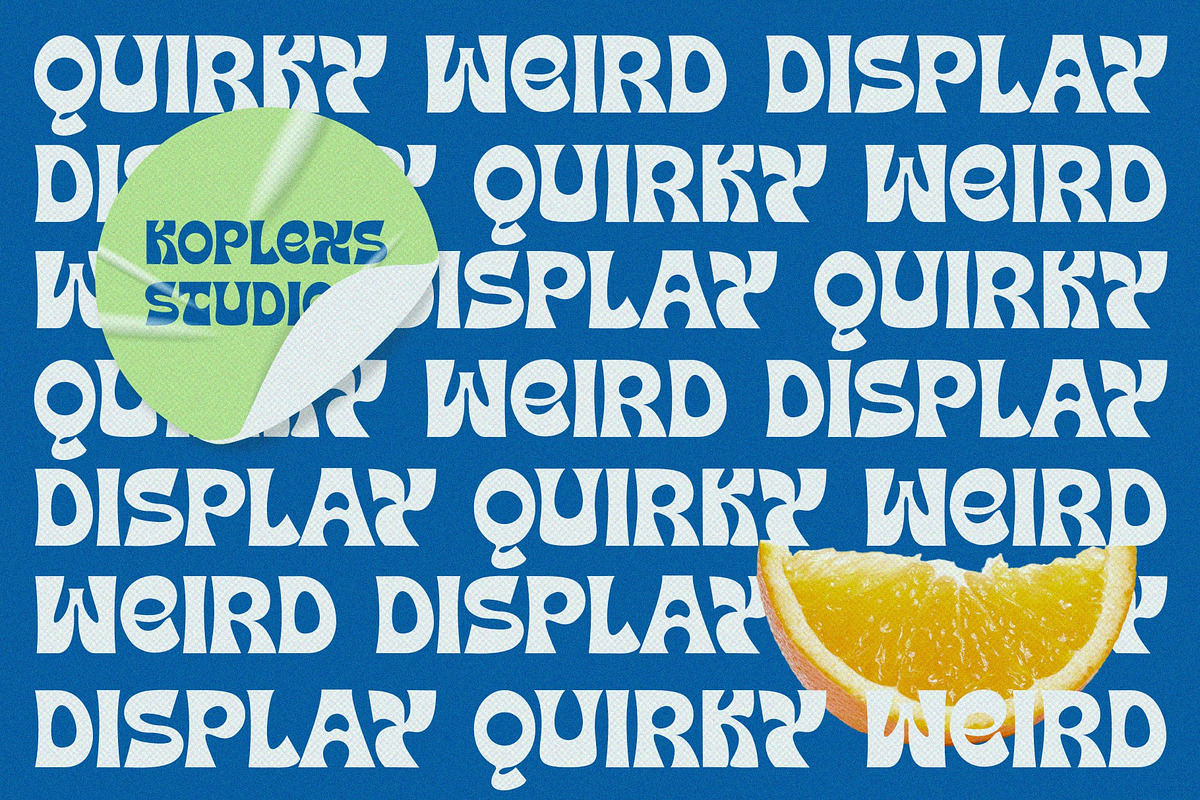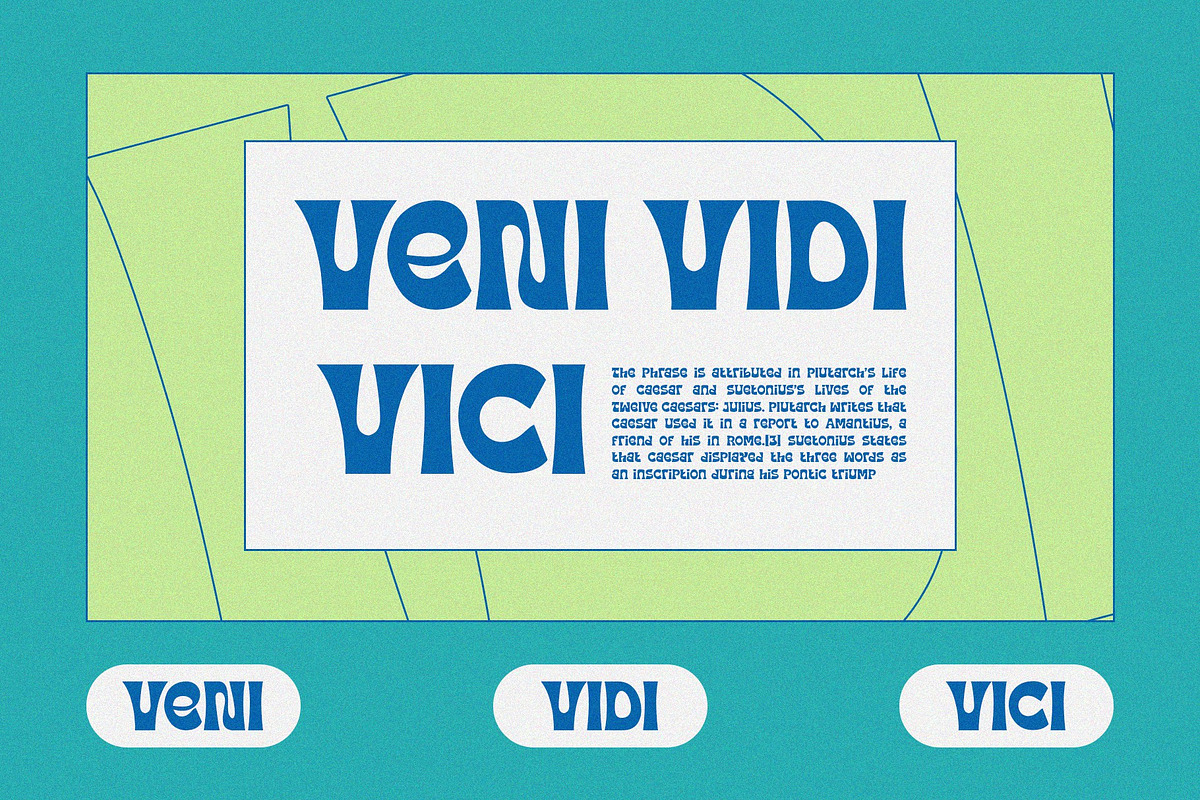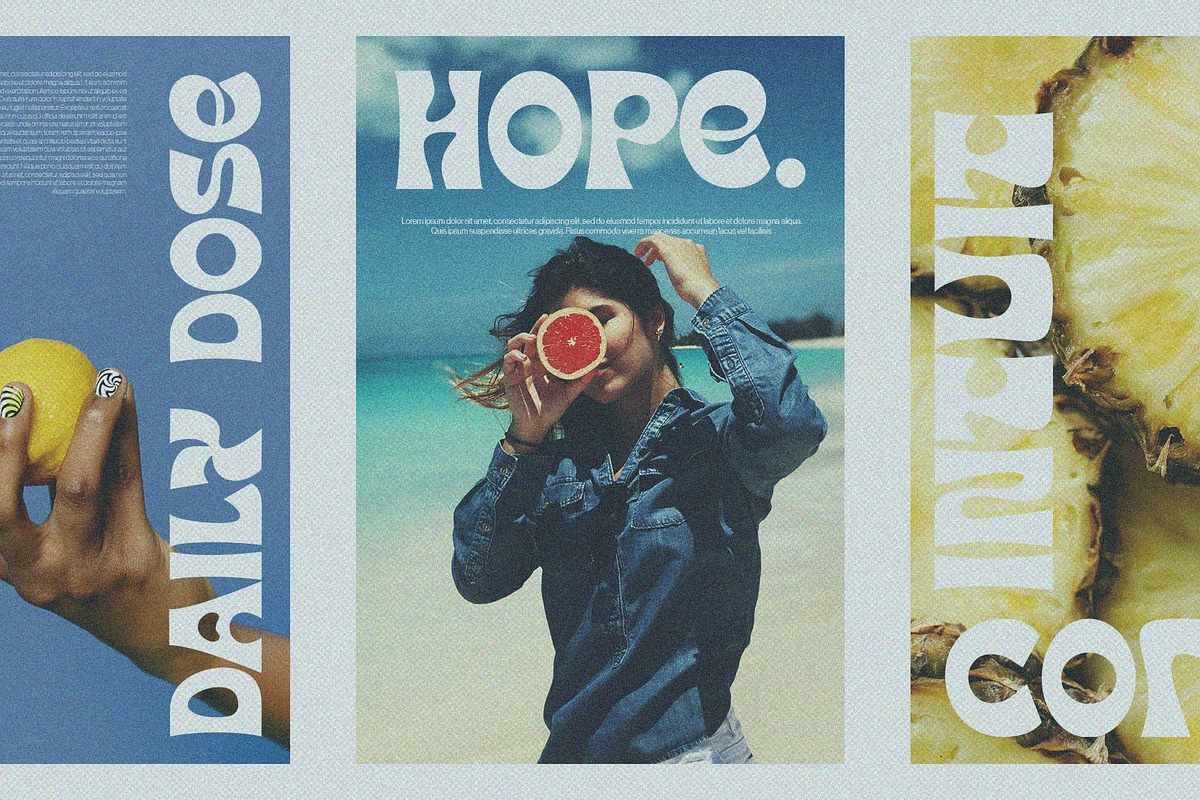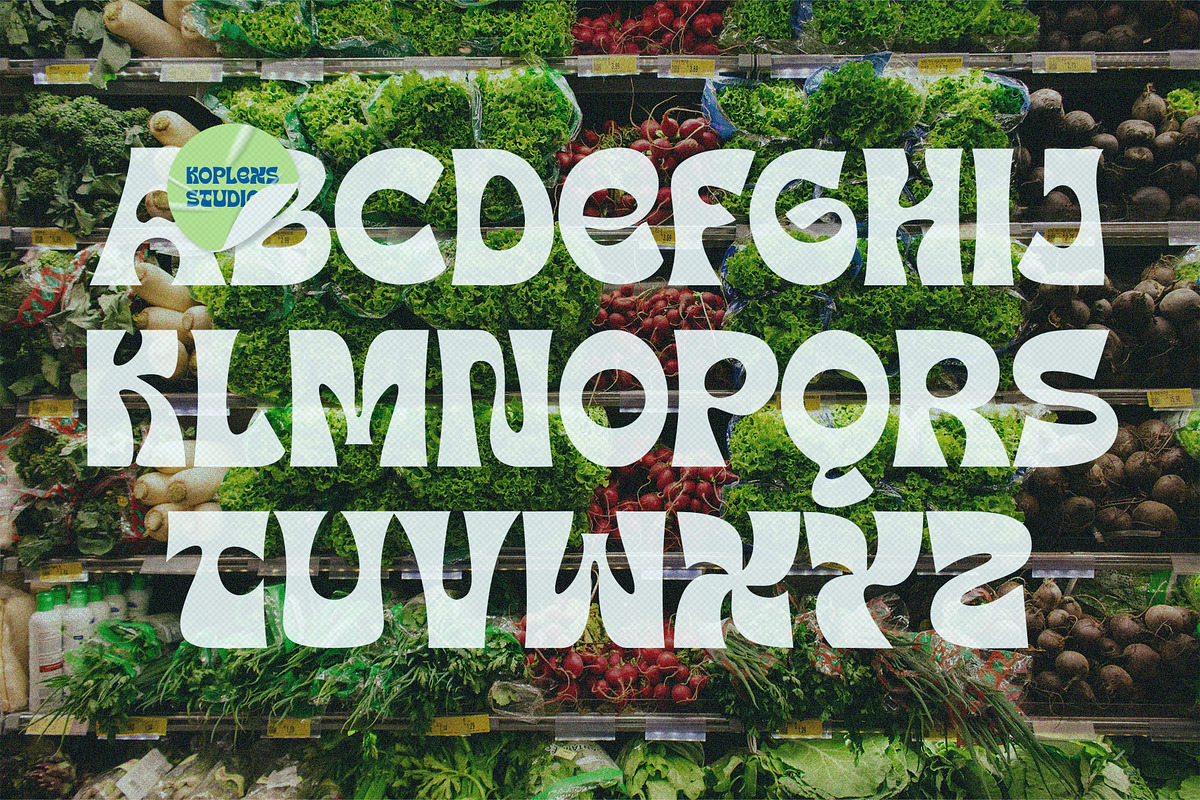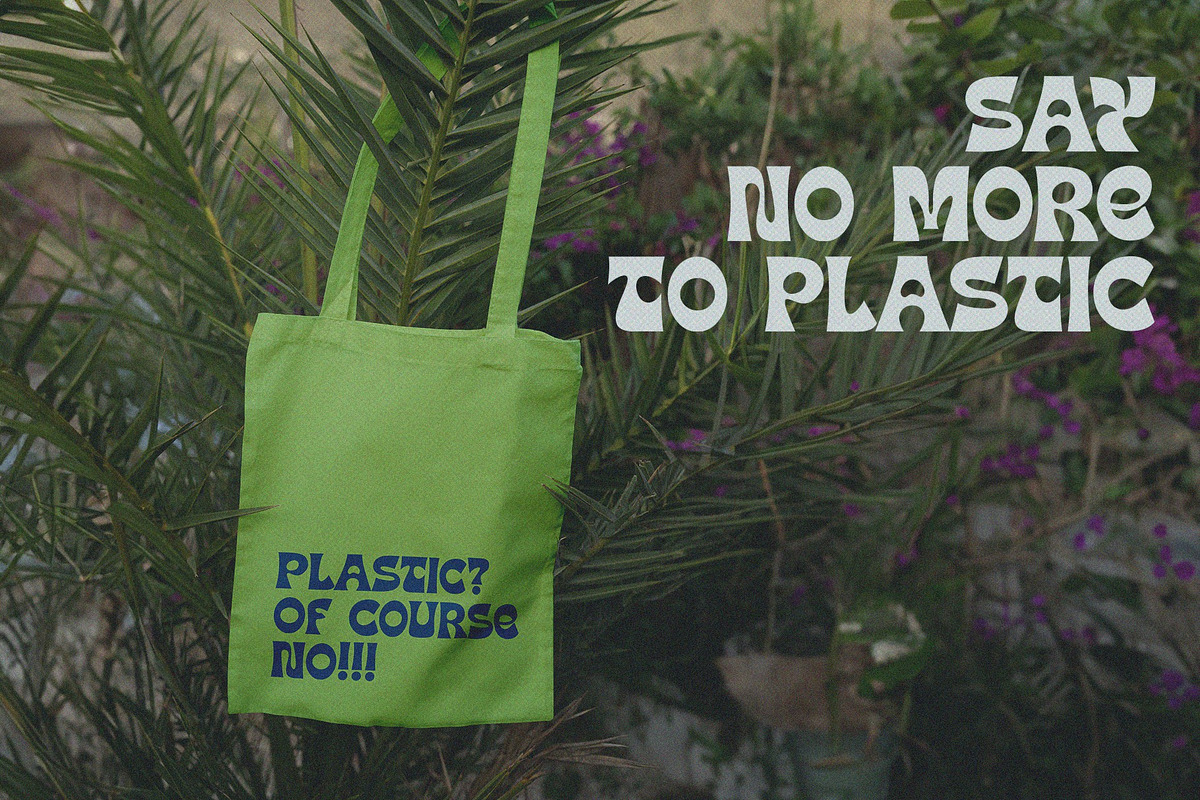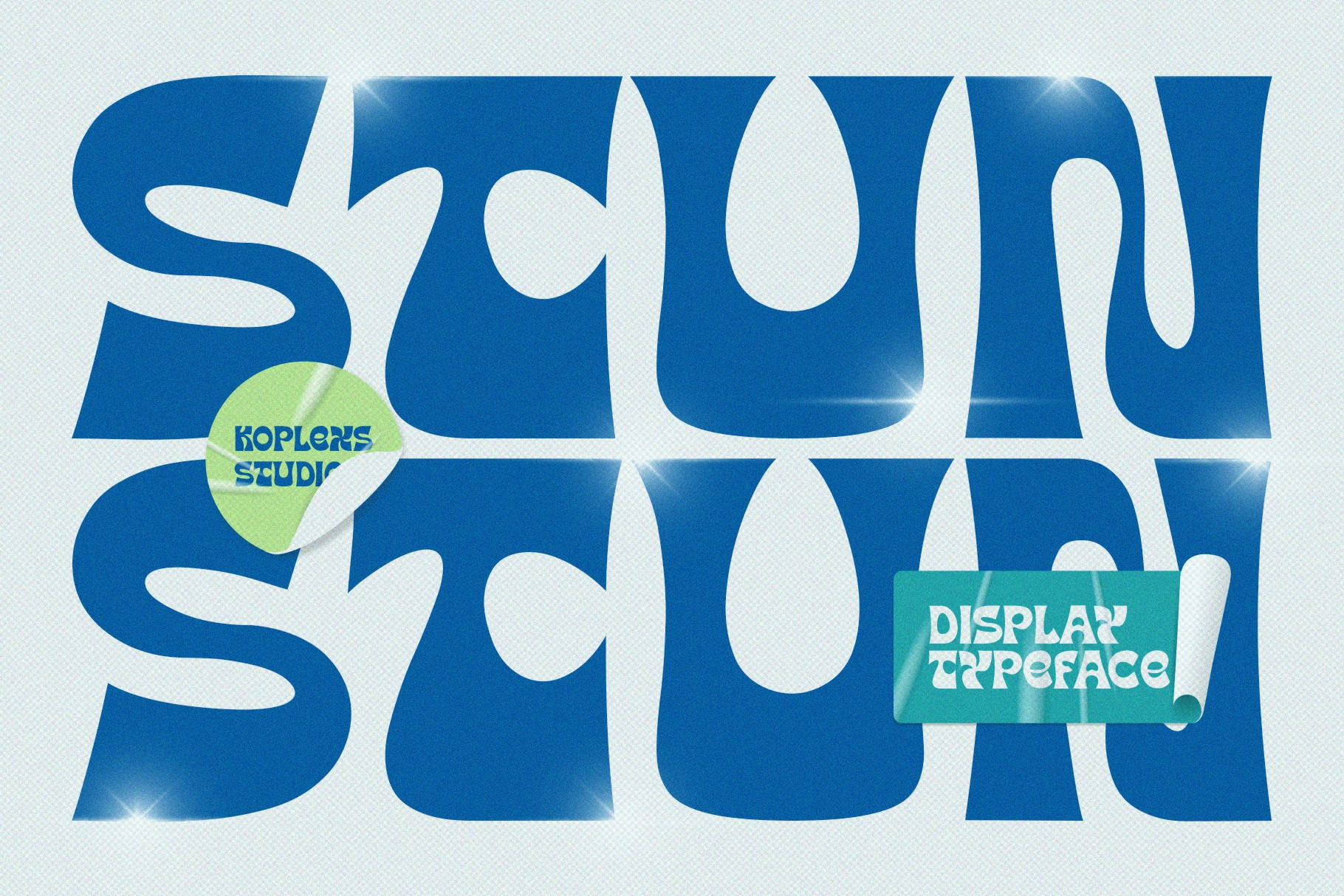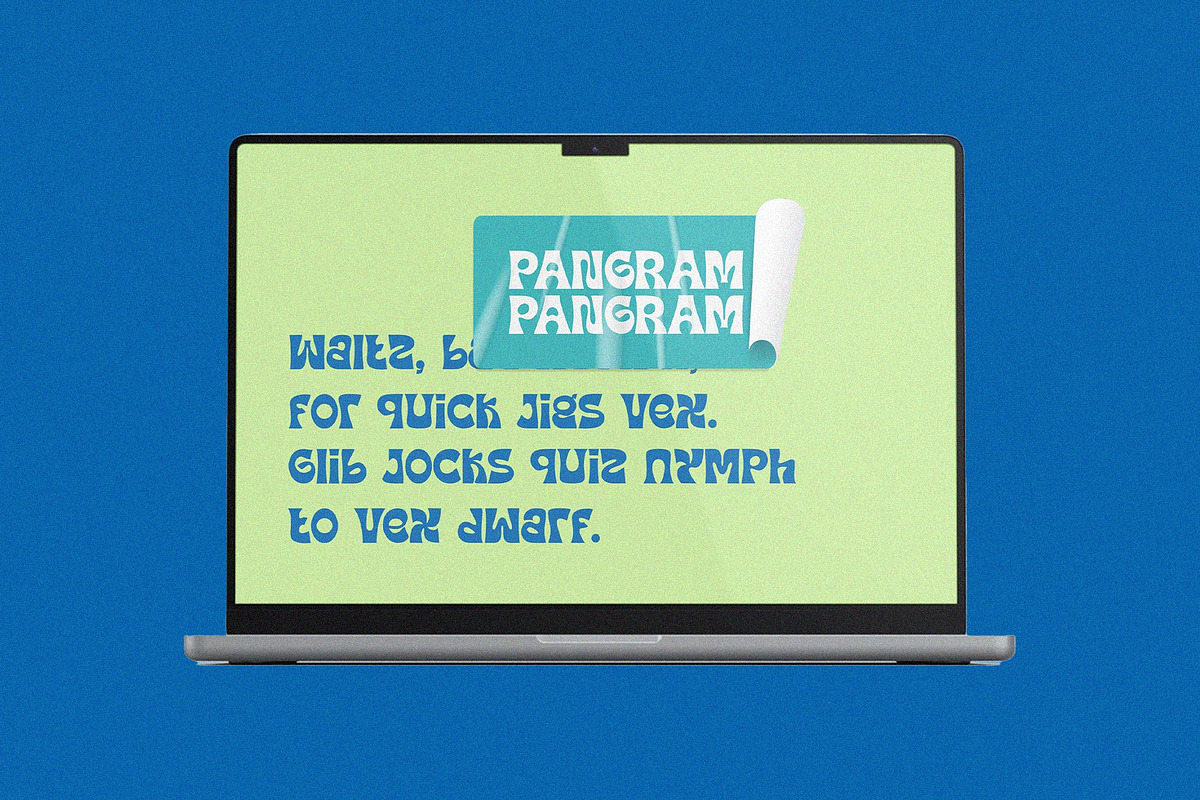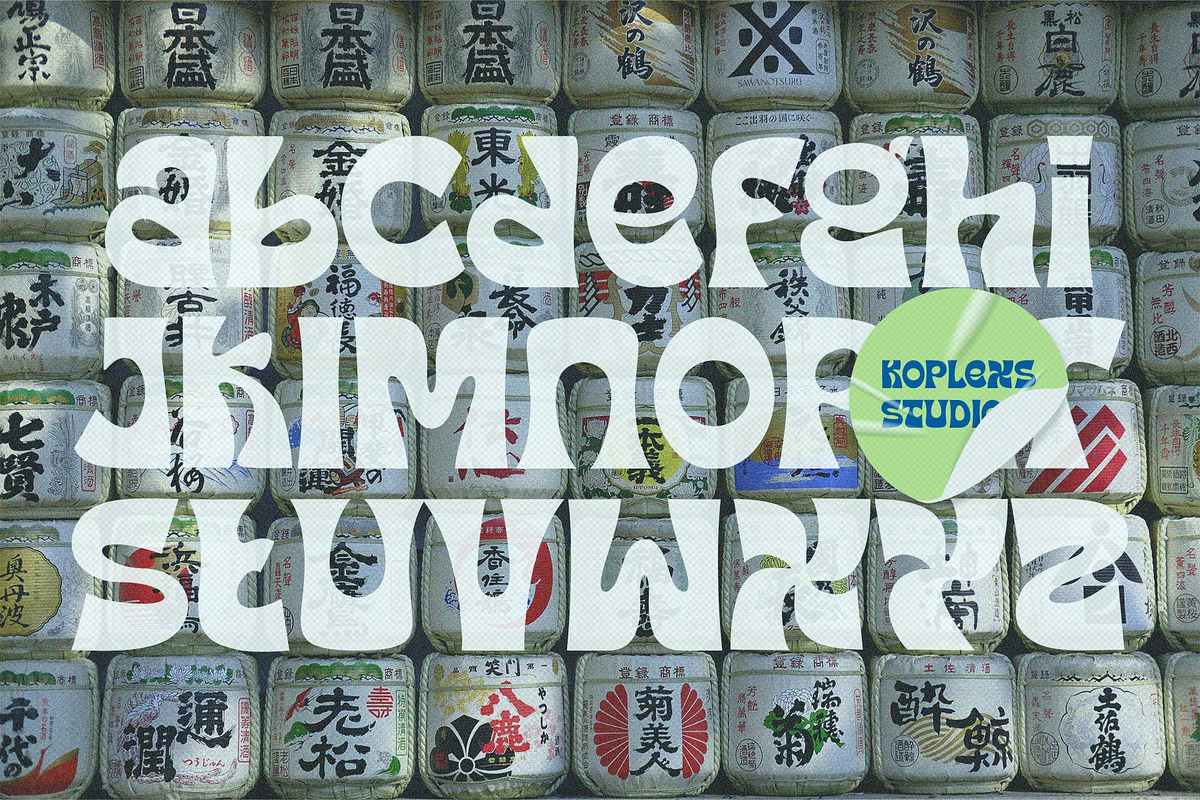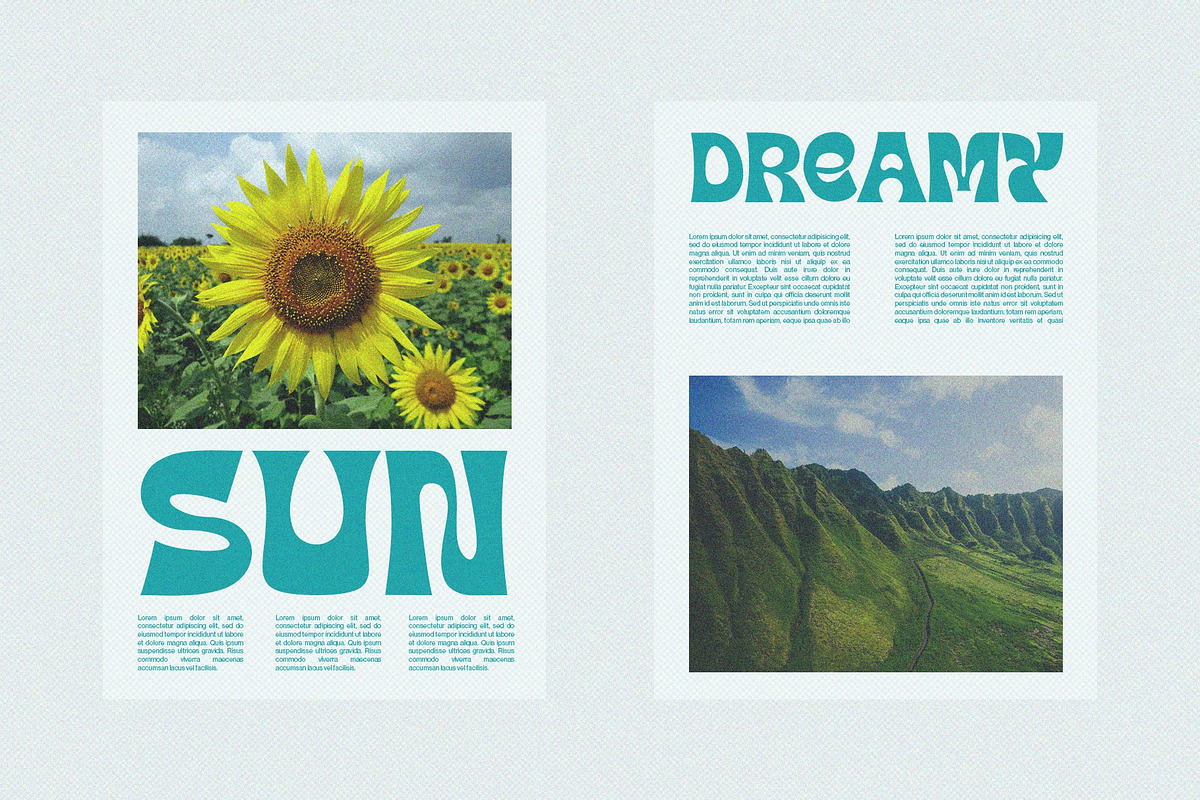
Stun – Display Typeface Font
Stun is a bold and striking display typeface designed to captivate and inspire. Perfect for designers seeking a font that balances retro aesthetics with a modern twist, Stun’s unique curves and playful letterforms bring energy and personality to any project.
Whether you're crafting an eye-catching poster, branding a creative business, or designing vibrant social media content, Stun offers endless versatility. Its clean construction ensures professional results across print and digital mediums, while its multilingual support expands your reach globally.
Why Choose Stun?
- Versatility: Ideal for branding, packaging, posters, editorial layouts, and social media graphics.
- Timeless Appeal: A seamless blend of retro charm and modern elegance to elevate your designs.
Transform your projects with Stun – Display Typeface Font—the perfect choice for bold, creative, and unforgettable designs!